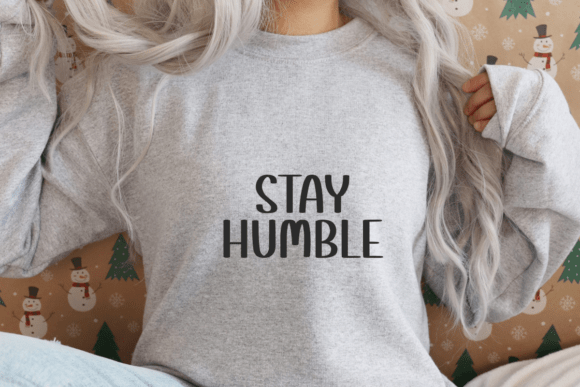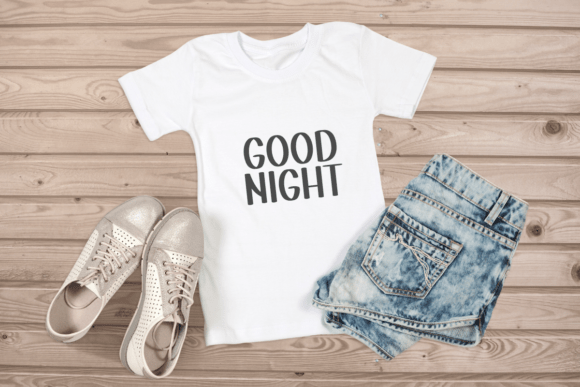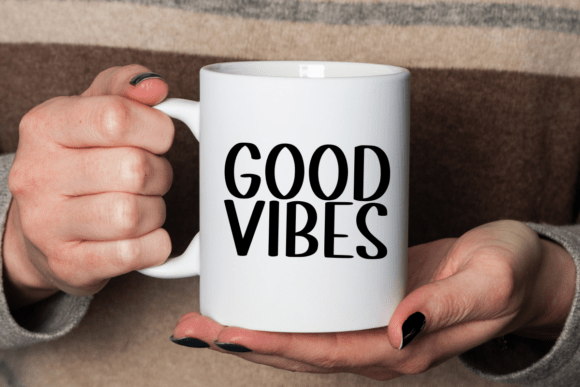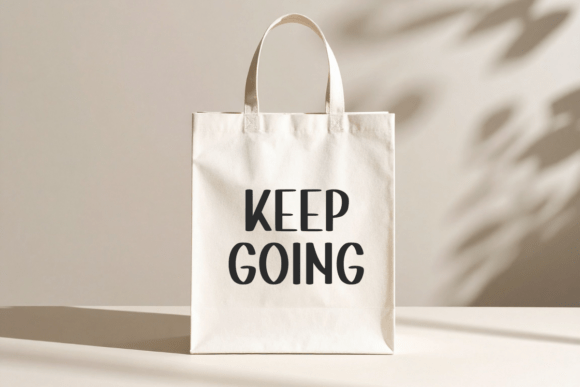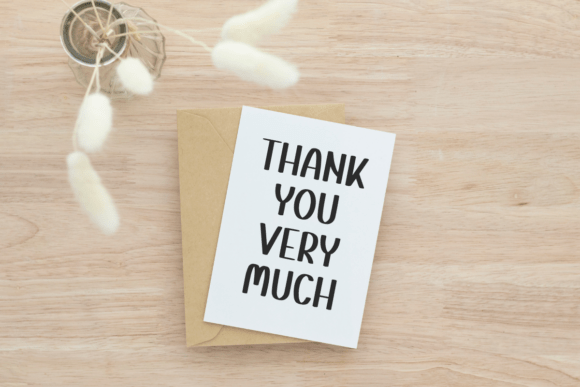
Introducing Future Secured Font: The Sassy and Sarcastic Handwritten Companion for Designers and Crafters
In the world of digital design, a font can make or break the aesthetic of a project. For designers and crafters looking for a touch of sass and sarcasm in their creations, the Future Secured Font is an exciting discovery. This handwritten font, inspired by natural handwriting, brings a rounded and friendly look that’s perfect for a wide range of applications. From journals and planners to greeting cards and DIY crafts, Future Secured is set to become your go-to font for adding a fun and adorable touch to your projects.
The Essence of Future Secured Font
Future Secured Font is not just any ordinary font. Its unique blend of sassiness and sarcasm, coupled with a warm and inviting handwritten style, sets it apart from more traditional fonts. The natural handwriting inspiration gives it a personal and relatable feel, making it ideal for projects that aim to connect with the audience on a more intimate level.
One of the standout features of the Future Secured Font is its versatility. Its rounded and friendly look makes it suitable for a plethora of creative projects. Here are some of the areas where Future Secured truly shines:
- Journals and Planners: Add a personal touch to your journals and planners with a font that feels both fun and functional.
- Notes and Sticky Notes: Stand out with a font that’s both adorable and easy to read.
- KDP Interiors: Enhance your Kindle Direct Publishing (KDP) projects with a font that’s engaging and reader-friendly.
- Canva Templates: Elevate your Canva designs with a font that’s both trendy and timeless.
- Birthday and Baby Shower Designs: Create memorable invitations and decorations with a font that’s as fun as it is festive.
- Greeting Cards: Add a touch of personality to your greeting cards, making them anything but ordinary.
- Stickers and Diaries: Perfect for creating stickers and custom diaries that stand out.
- Tumblers and Sublimation Projects: Bring your tumblers and sublimation projects to life with a font that’s both vibrant and charming.
- DIY Crafts: From scrapbooking to crafting, Future Secured Font is the perfect companion for all your DIY needs.
Why Choose Future Secured Font?
With so many fonts available, what makes Future Secured Font a top choice for designers and crafters? Here are a few reasons:
- Unique Style: Its sassy and sarcastic tone, combined with a friendly look, makes it a unique addition to any project.
- Readability: Despite its playful nature, Future Secured Font remains highly readable, making it suitable for both digital and print projects.
- Emotional Connection: The personal touch it brings can help create an emotional connection with your audience, making your projects more impactful.
Future Secured Font is more than just a font – it’s a creative companion that can elevate your designs and crafts to new heights. Its unique blend of sassiness, sarcasm, and friendliness, coupled with its versatility and readability, makes it an invaluable asset for designers and crafters. Whether you’re working on journals, planners, greeting cards, or DIY projects, Future Secured Font is sure to add that special touch that sets your work apart. So, why wait? Dive into the world of Future Secured Font and discover a new realm of creative possibilities!